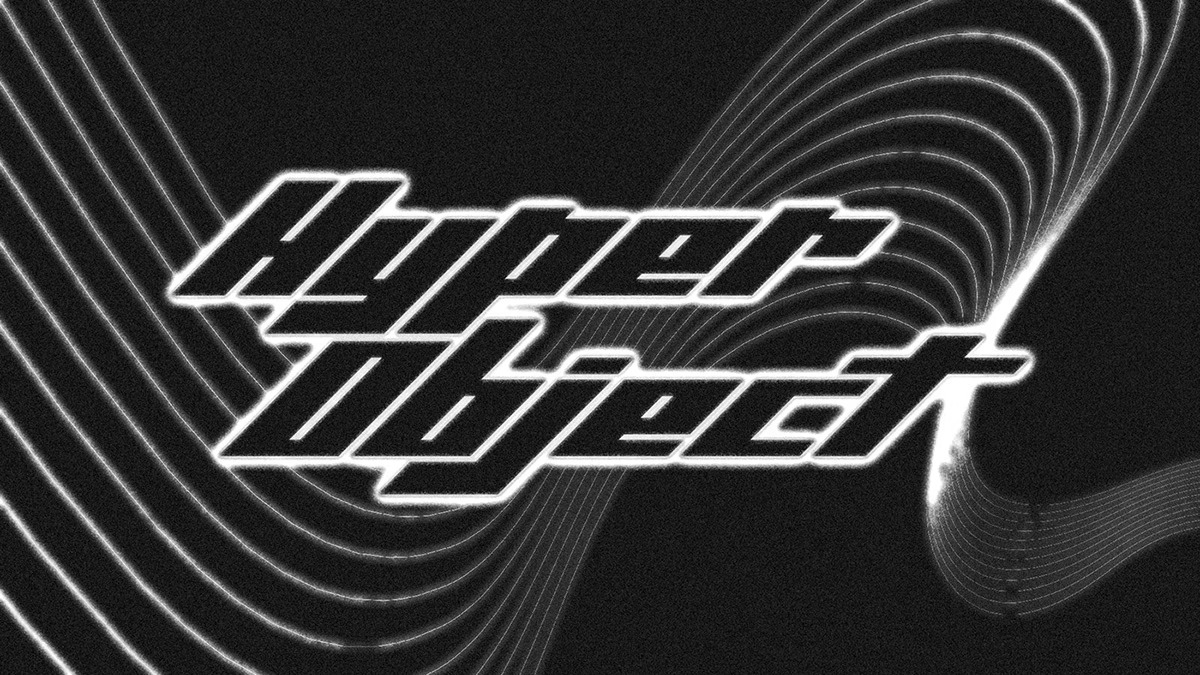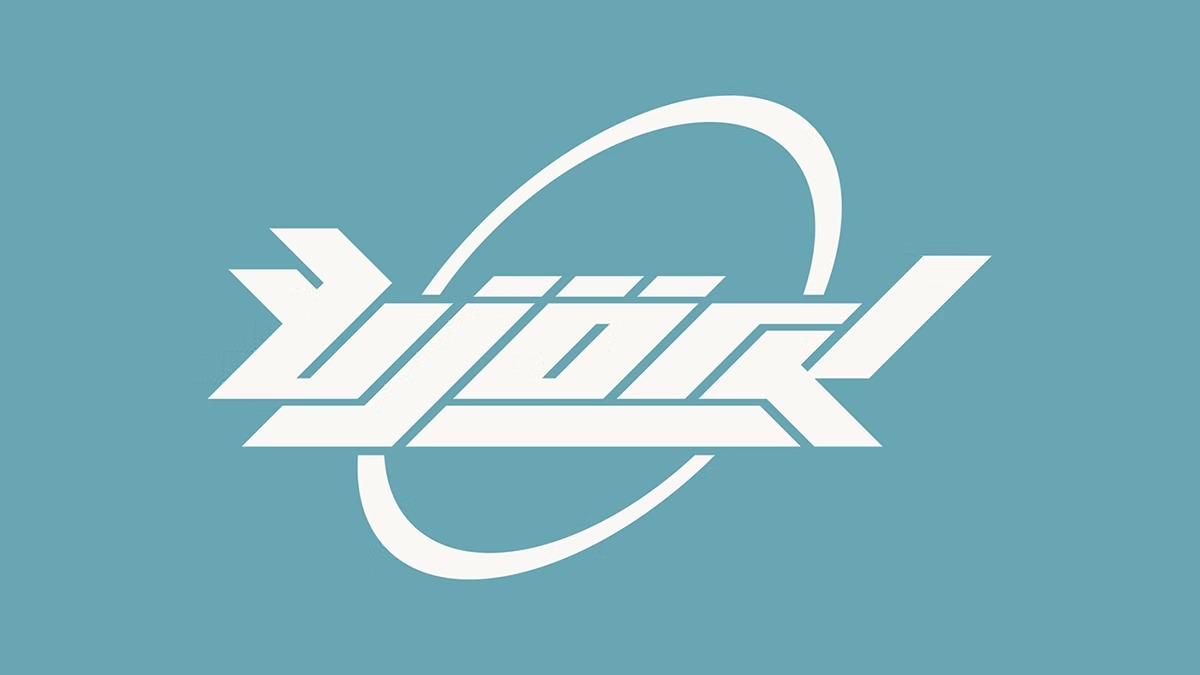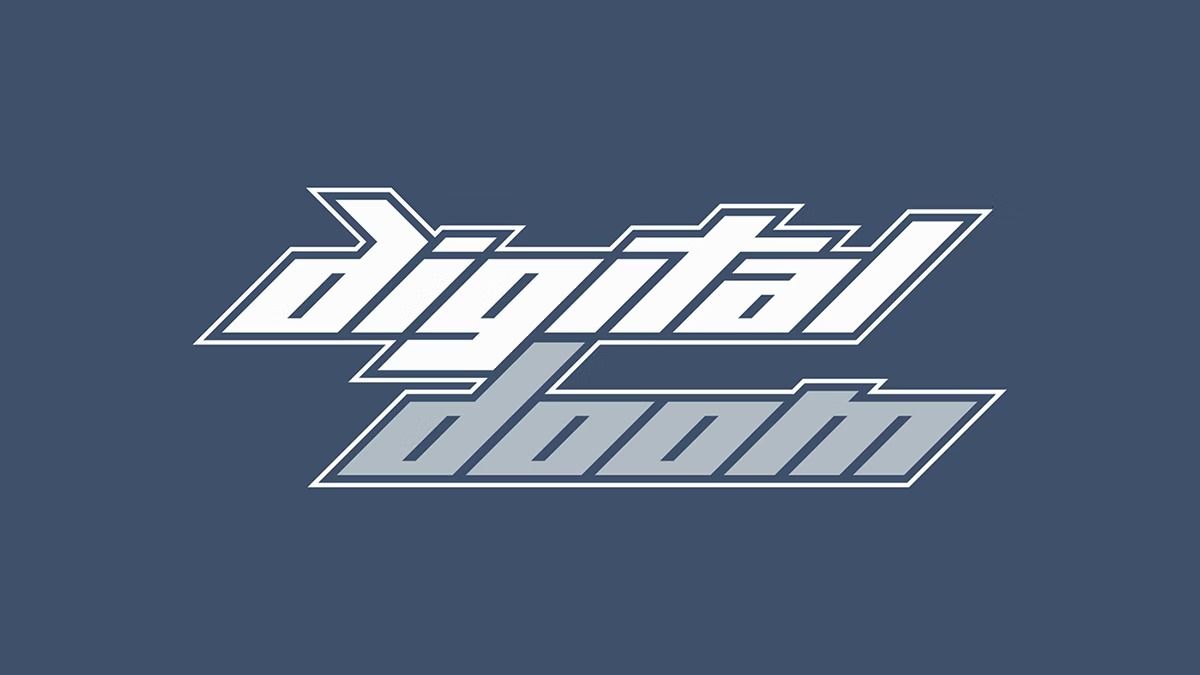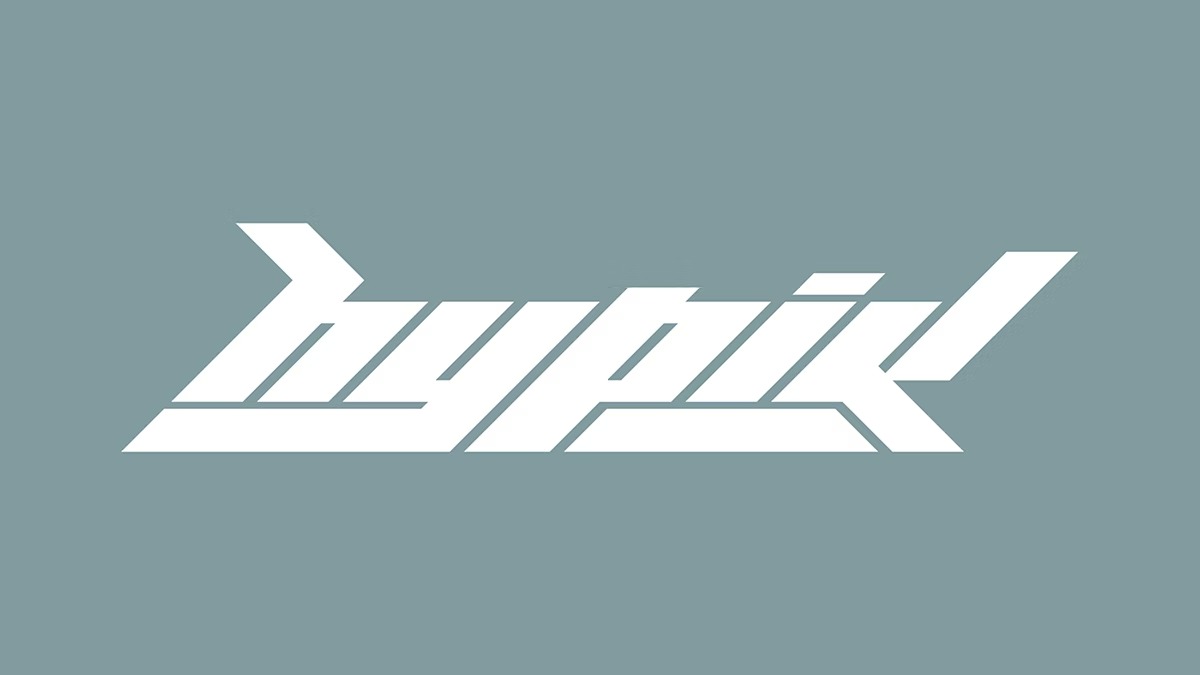
Hypik Display Font
It’s a Modern Elegant logo font manufactured by Matt Cole Wilson. This font is perfect for your up coming projects. Such as logo branding, editorial design, stationery design, sport design, 80s retro design, esport game industry, sport racing, super car brand, music poster, blog design, modern advertising design, card invitation, art quote, home decor, book/cover title, special events and any more.